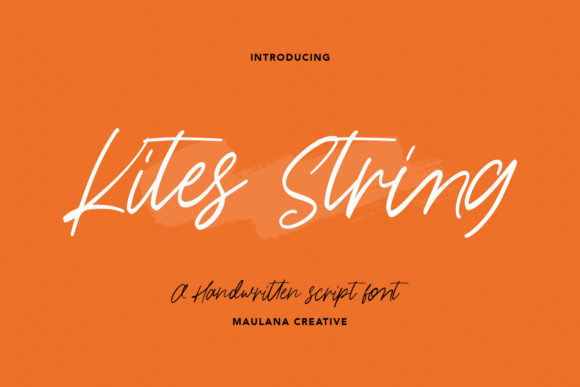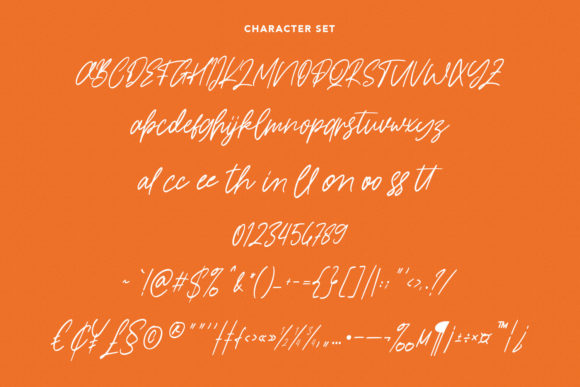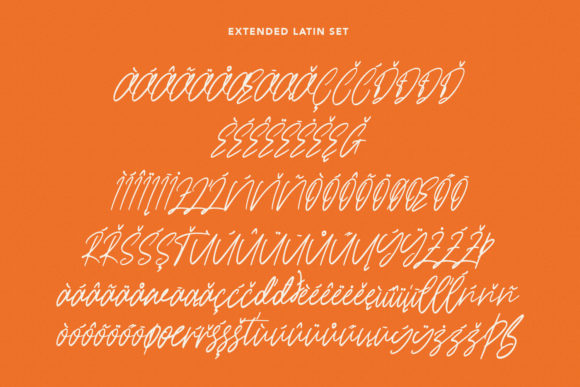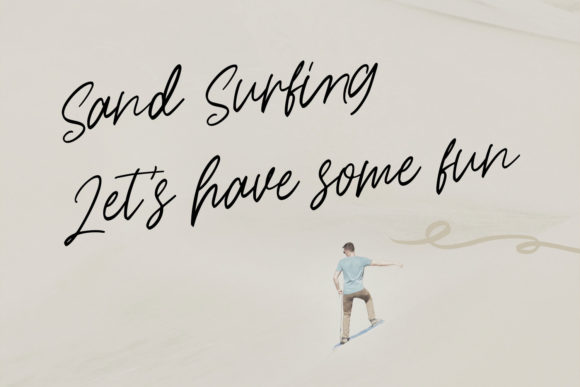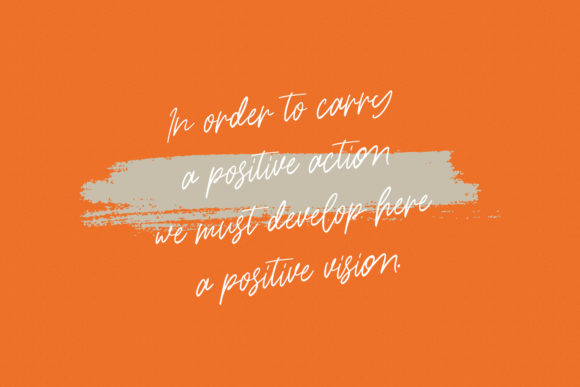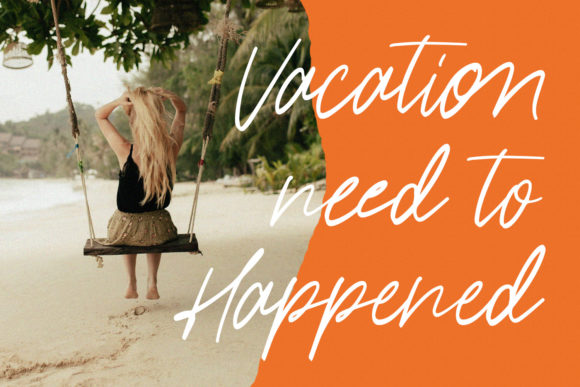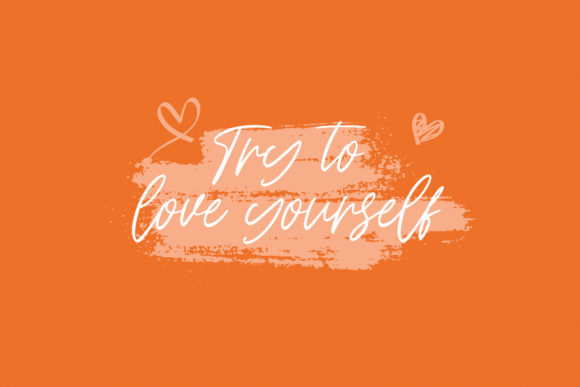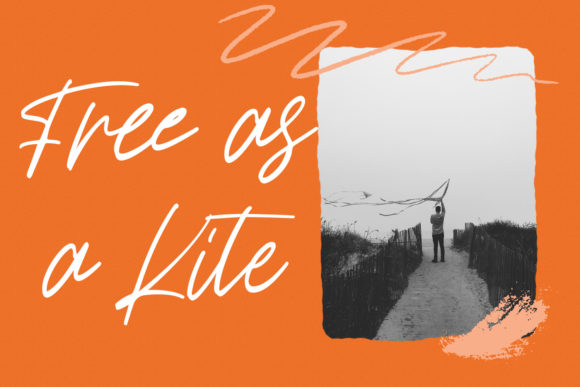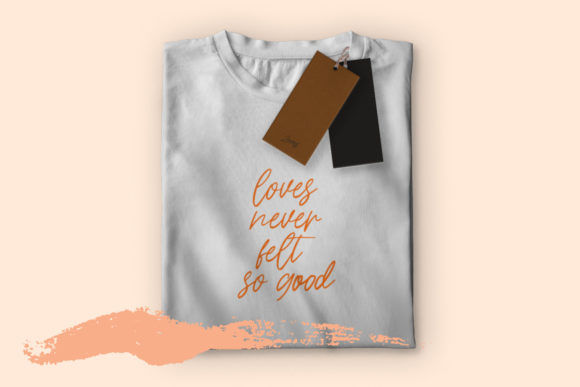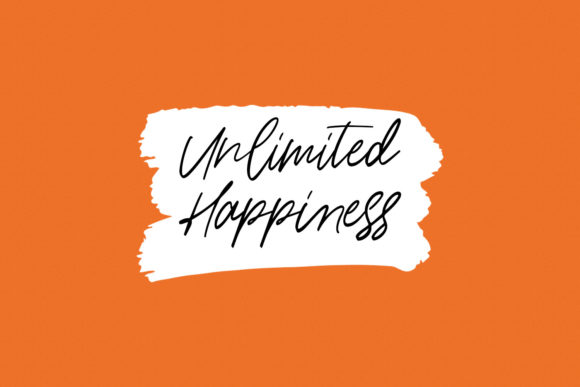
Kites String Font
About Kites String Font
Kites String feels equally charming and elegant. It looks stunning on wedding invitations, thank you cards, quotes, greeting cards, logos, business cards and every other design which needs a handwritten touch.